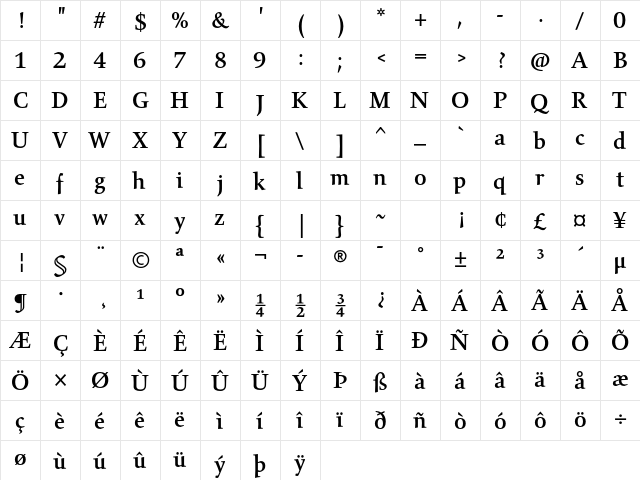
Gilgamesh Std Medium
| Designer | Michael Gills |
Design Context for Gilgamesh Std Typeface
Gilgamesh Std is a composed and adaptable typeface that performs quietly and consistently across a wide range of design contexts.